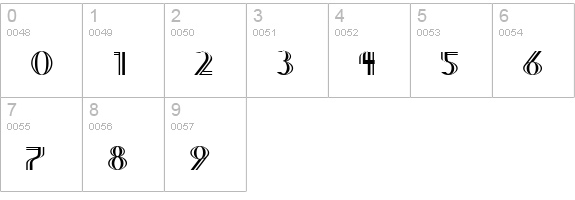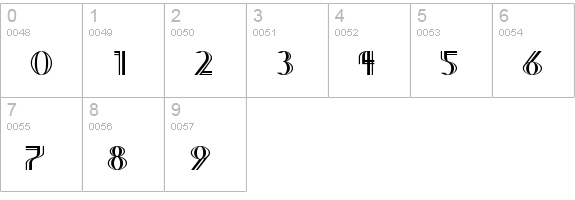
Nineteen Ten Vienna Font Details
Nineteen Ten Vienna font exudes elegance and sophistication with its timeless design inspired by the Art Nouveau movement of the early 20th century. This exquisite font captures the essence of Vienna's rich cultural heritage, blending intricate details with a touch of modern flair. Its graceful curves and delicate lines create a sense of nostalgia while maintaining a contemporary edge. Nineteen Ten Vienna font is a versatile typeface suitable for a wide range of design projects, from luxurious branding to elegant invitations and editorial layouts. Whether used for headlines or body text, this font adds a touch of refinement and charm to any composition. Best of all, Nineteen Ten Vienna font is available for free download at FontsMarket.com, making it easily accessible for designers and creatives looking to elevate their projects with a touch of Viennese splendor. Embrace the beauty and sophistication of Nineteen Ten Vienna font in your next design endeavor and let its timeless allure captivate your audience.